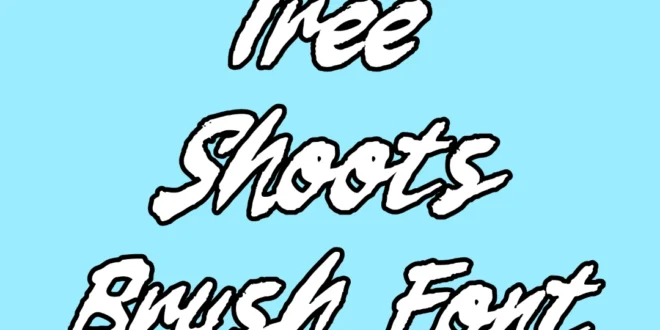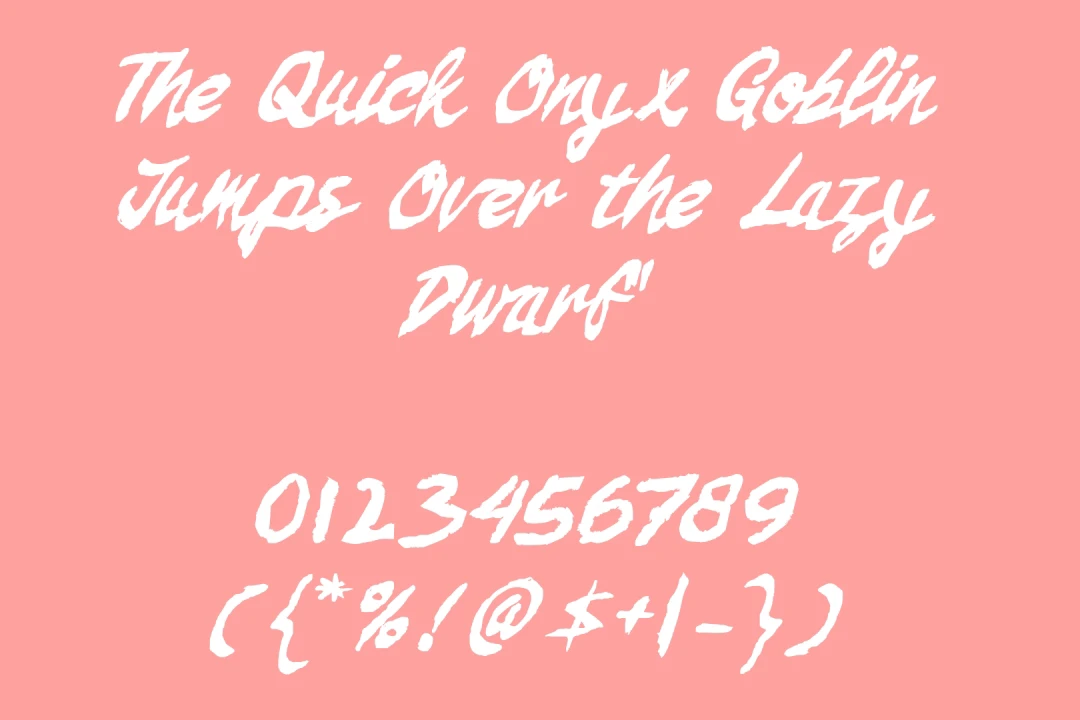
Tree Shoots Brush Font
Tree Shoots Brush Font is a unique and artistic typeface designed to mimic the natural strokes and fluidity of hand-drawn brush lettering. Its organic, rustic charm makes it ideal for a wide range of creative projects, from branding and packaging to social media graphics and digital art.
This font features bold, expressive strokes that convey a sense of spontaneity and creativity. The uneven, hand-crafted appearance of the characters adds a personal touch to any design, making it perfect for projects that require a warm, human touch. The font includes both uppercase and lowercase letters, numerals, and a variety of punctuation marks and special characters to ensure versatility in design applications.
Usage of Tree Shoots Brush Font
It is highly versatile and can be used for various design projects, Its unique style is perfect for logos, business cards, and product packaging that needs a distinctive, hand-made feel.
Create eye-catching posts and stories with the font’s dynamic and engaging appearance. The bold strokes make it ideal for headlines and titles in promotional materials. Enhance your digital artwork with the organic texture of brush lettering.
What is Tree Shoots Brush Font?
It is a hand-drawn typeface designed to replicate the look and feel of brush lettering. It is characterized by its bold, expressive strokes and organic appearance, making it perfect for projects that require a natural, handcrafted touch.